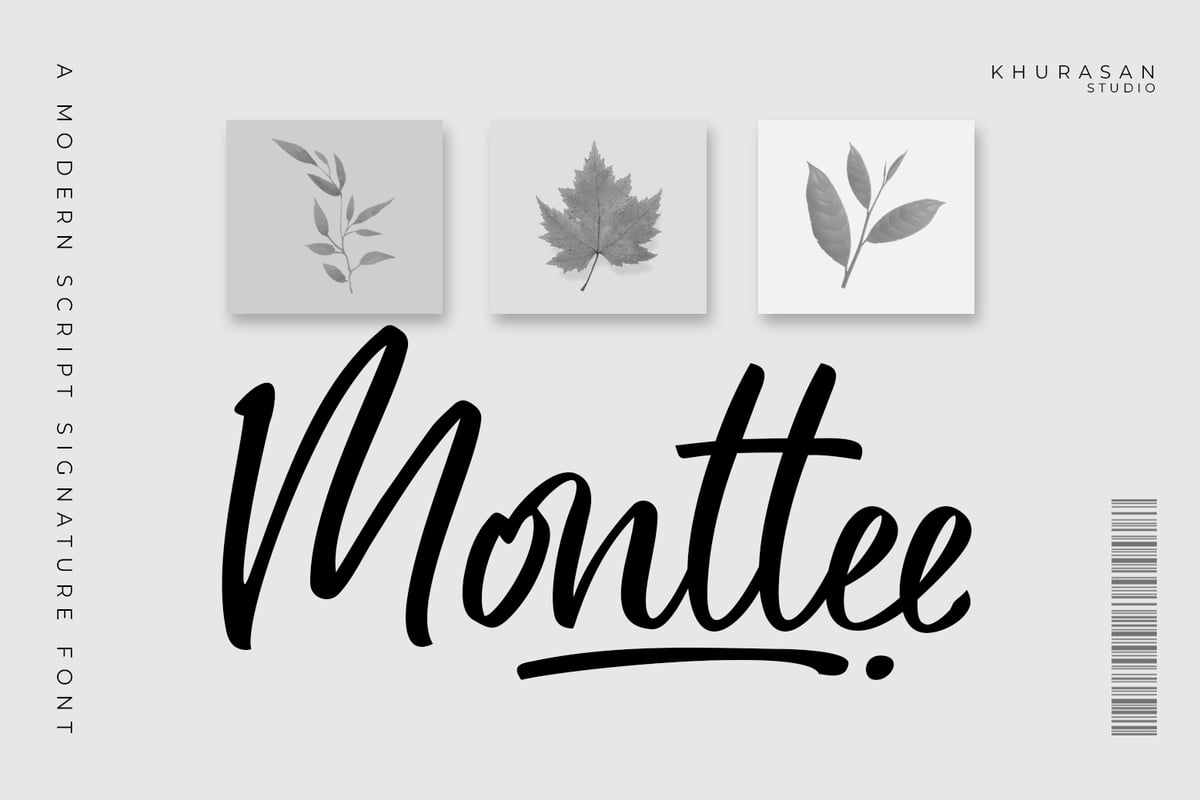
Monttee - A Modern Script Signature Font
Turn every word into a work of art — Monttee is the modern script font built for designers who refuse to be ordinary.
Monttee is a contemporary handwritten script typeface that captures the authentic beauty of real hand-lettering. Each stroke flows with energy — fluid, expressive, and full of character. This font delivers genuine handwritten warmth that infuses your designs with sophistication and premium appeal.